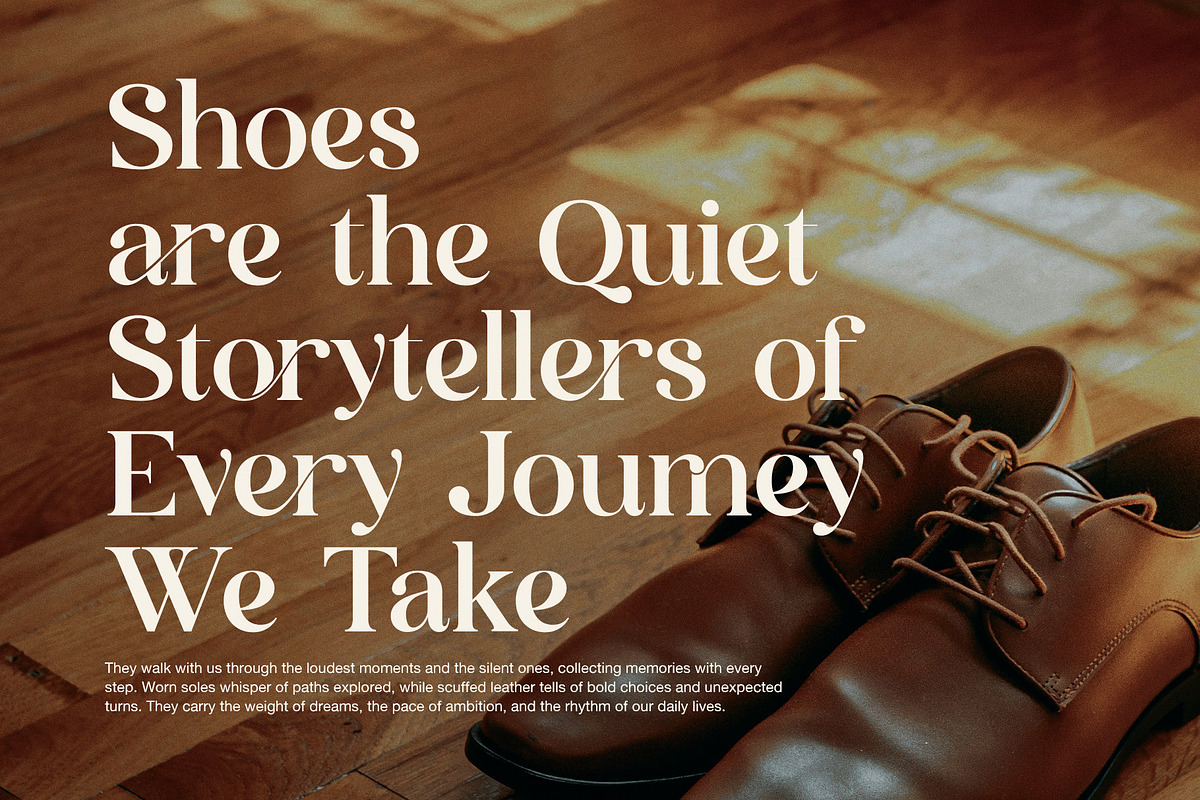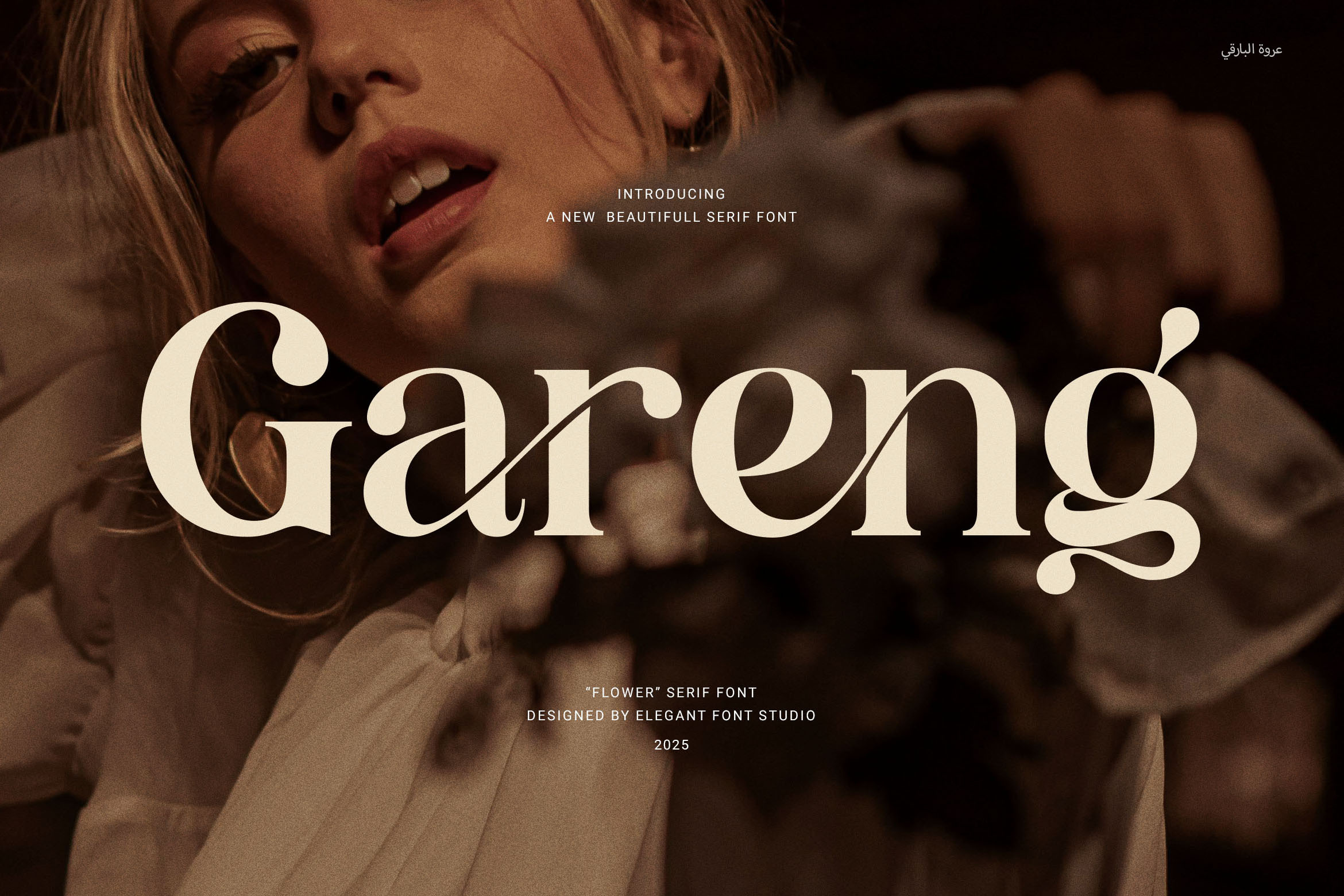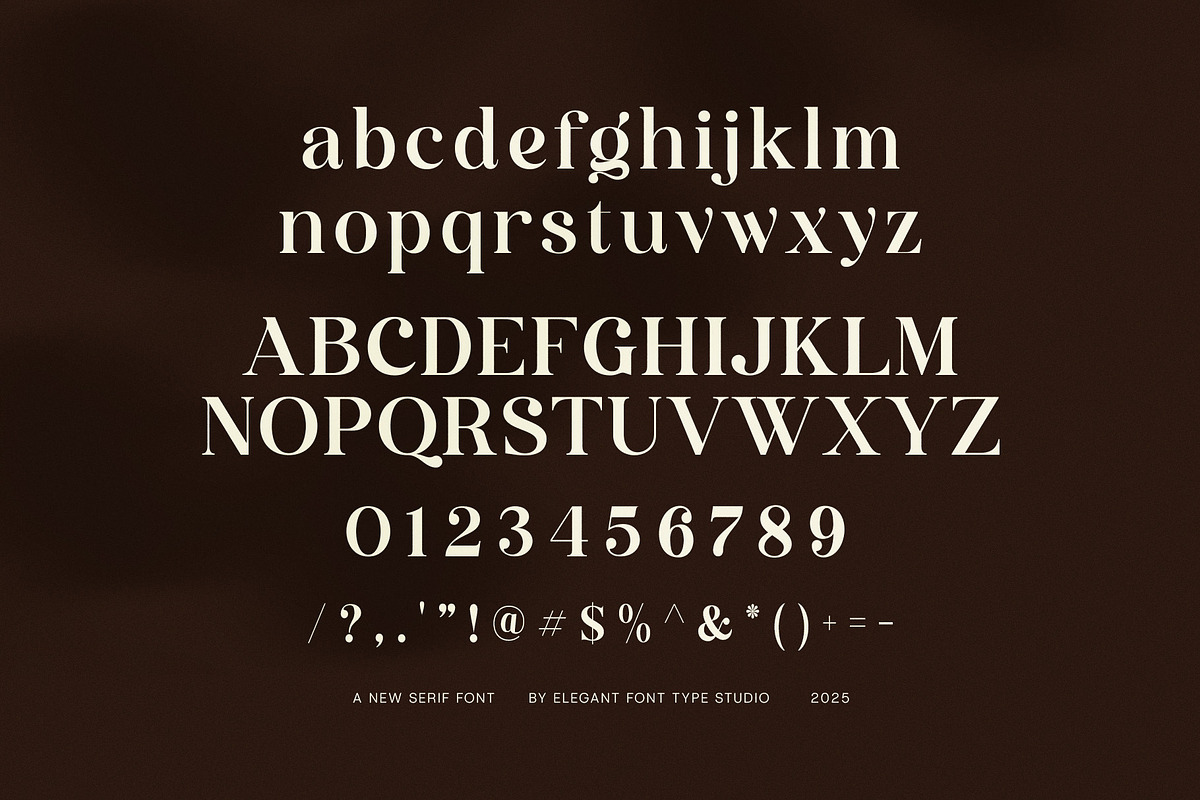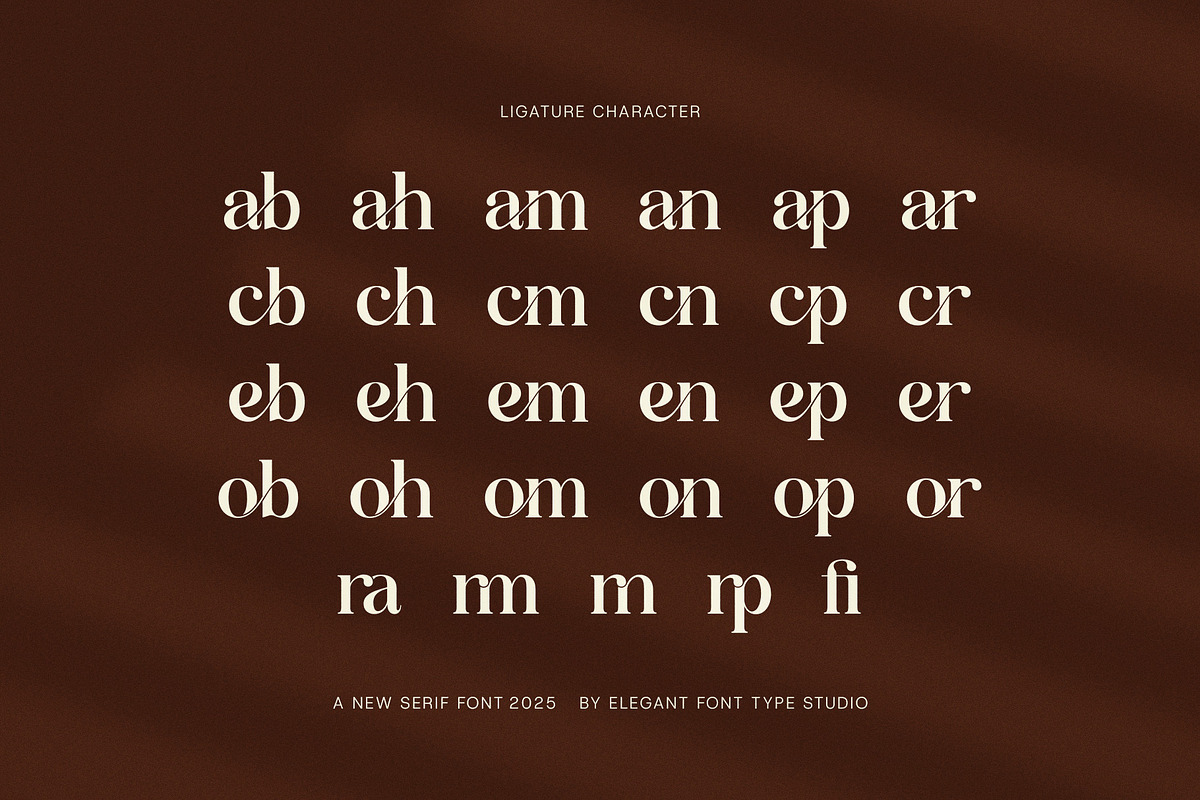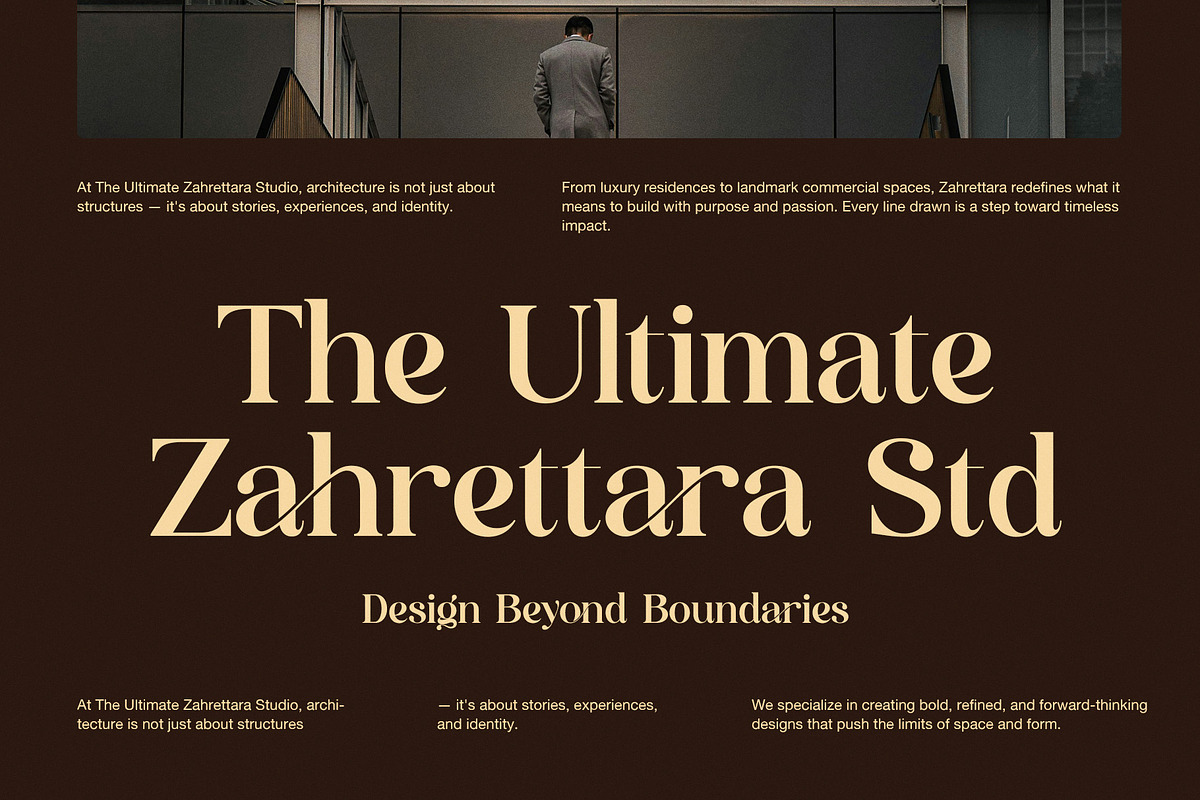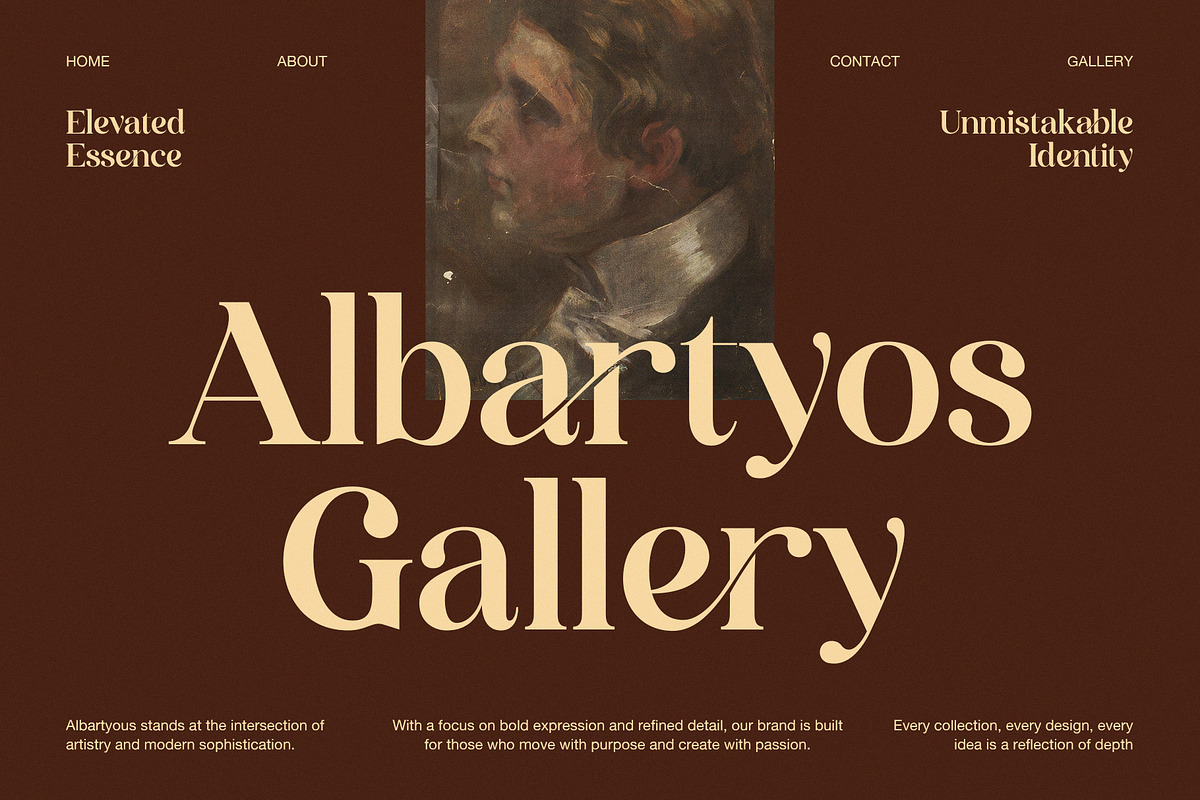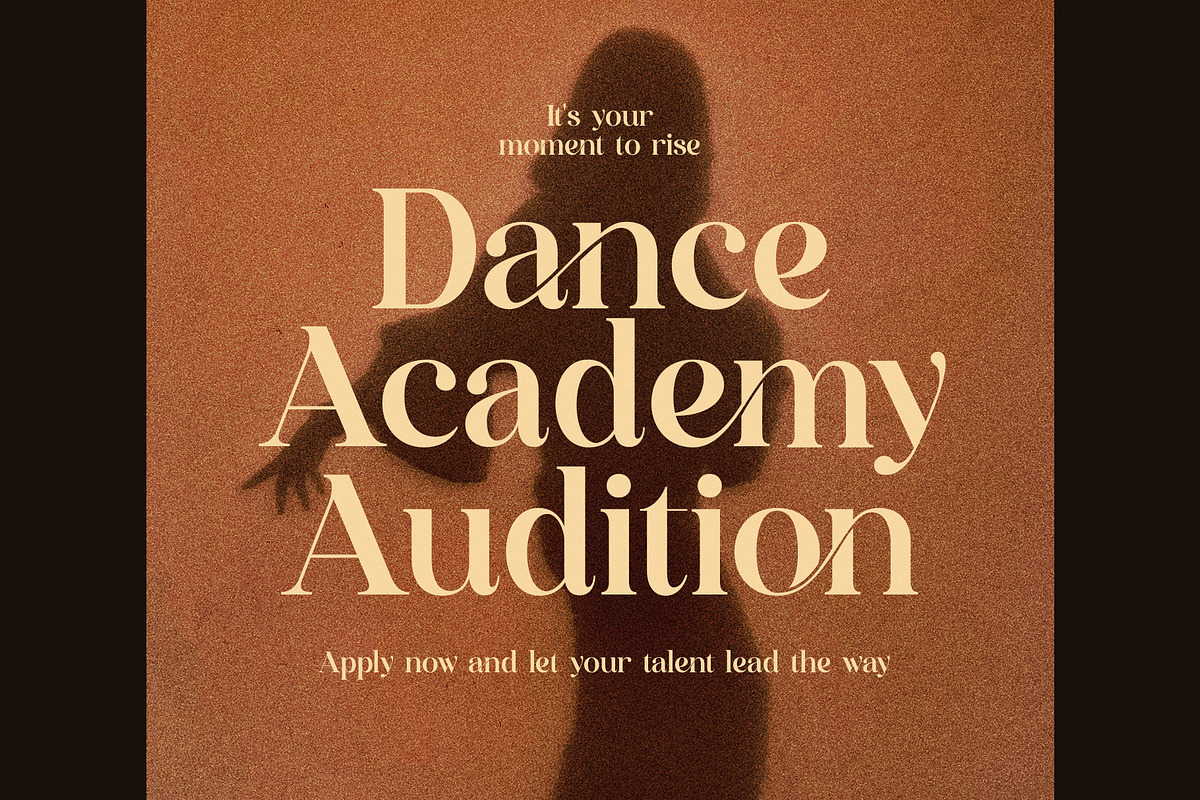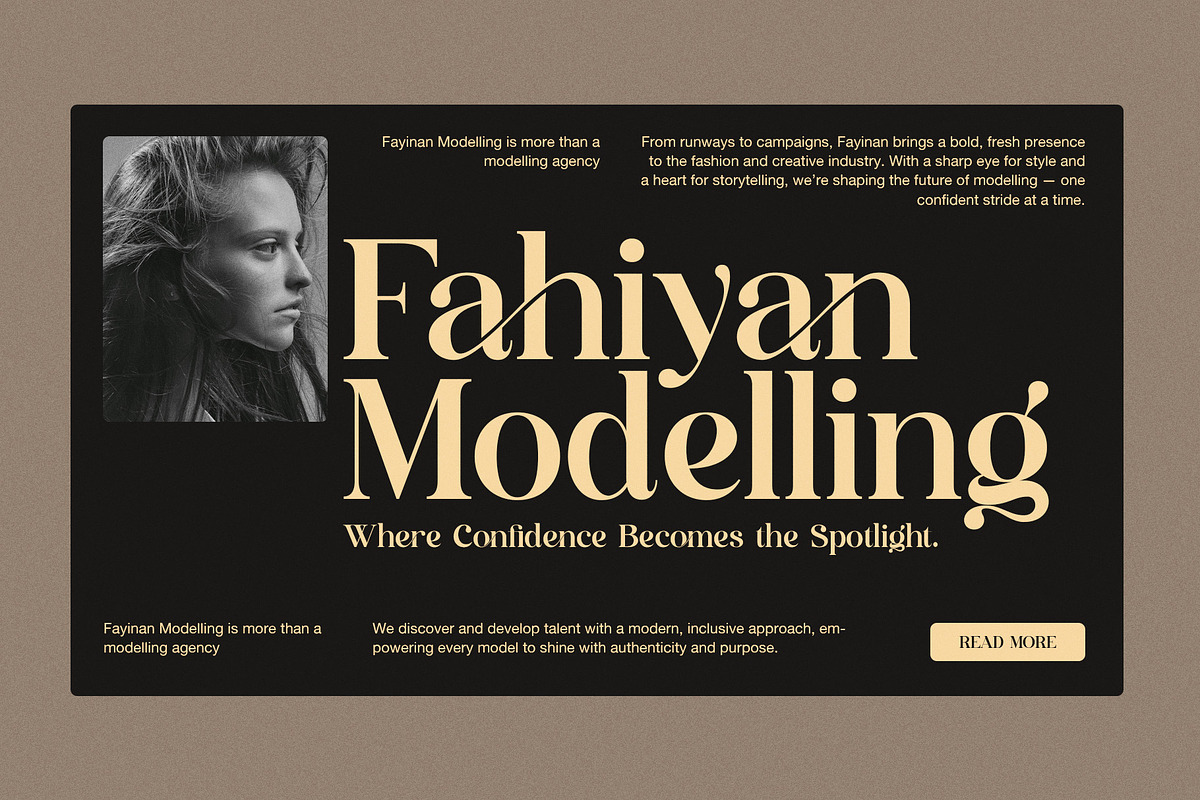
Gareng Elegant Serif Font
Gareng Elegant Serif Font — Modern & Elegant Typeface Perfect for Branding
Gareng Elegant Serif Font is a modern serif typeface that combines elegance with functionality. Designed with proportional shapes and smooth ligatures, this font fits perfectly across a wide range of branding projects. Whether you’re creating logos, websites, magazines, product packaging, or advertisements, Gareng delivers a refined, professional look that stands out.
This font brings clear readability and sophisticated style, making it ideal for boutiques, food brands, fashion labels, and corporate designs. Its versatility shines in both print and digital applications, ensuring your work looks sharp and polished everywhere.
Features of Gareng Elegant Serif Font include:
Modern serif design with proportional letterforms
Functional ligatures that enhance text flow and beauty
Perfect for logos, branding, websites, magazines, and packaging
Suitable for boutiques, food products, fashion, advertising, and more
High legibility on screens and in print
In summary, Gareng Elegant Serif Font offers a timeless, polished look combined with modern functionality. It is the perfect choice for anyone looking to create sophisticated, clear, and captivating branding materials.